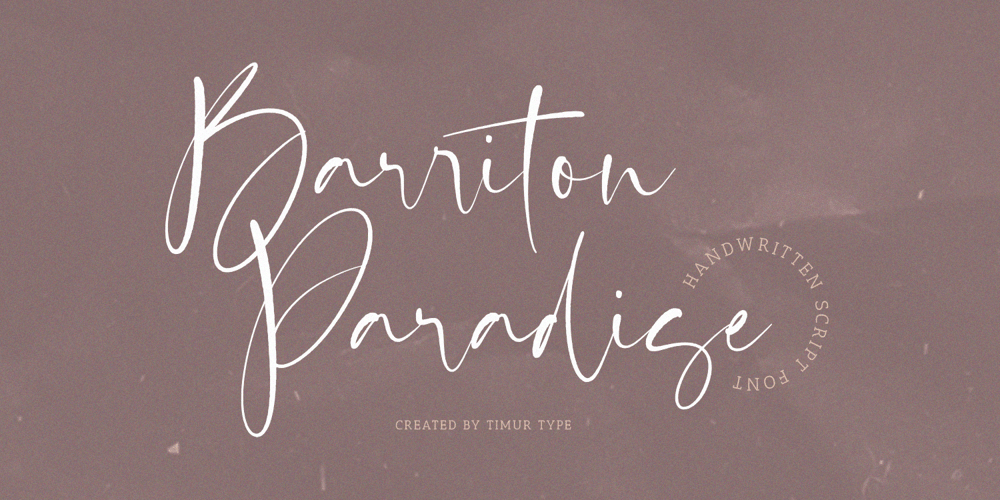
Barriton Paradise Font Family was designed by Wara Sigit Tri Pamungkas and published by Timurtype. Barriton Paradise contains 1 styles and family package options. Introducing by Timur typeProudly Present, Barriton Paradise A Handwritten Script FontBarriton Paradise is perfect for product packaging, branding project, megazine, social media, wedding, or just used to express words above the background.Barriton Paradise also multilingual support.Embelish your designs with our original fonts.Enjoy the font,Thank you!